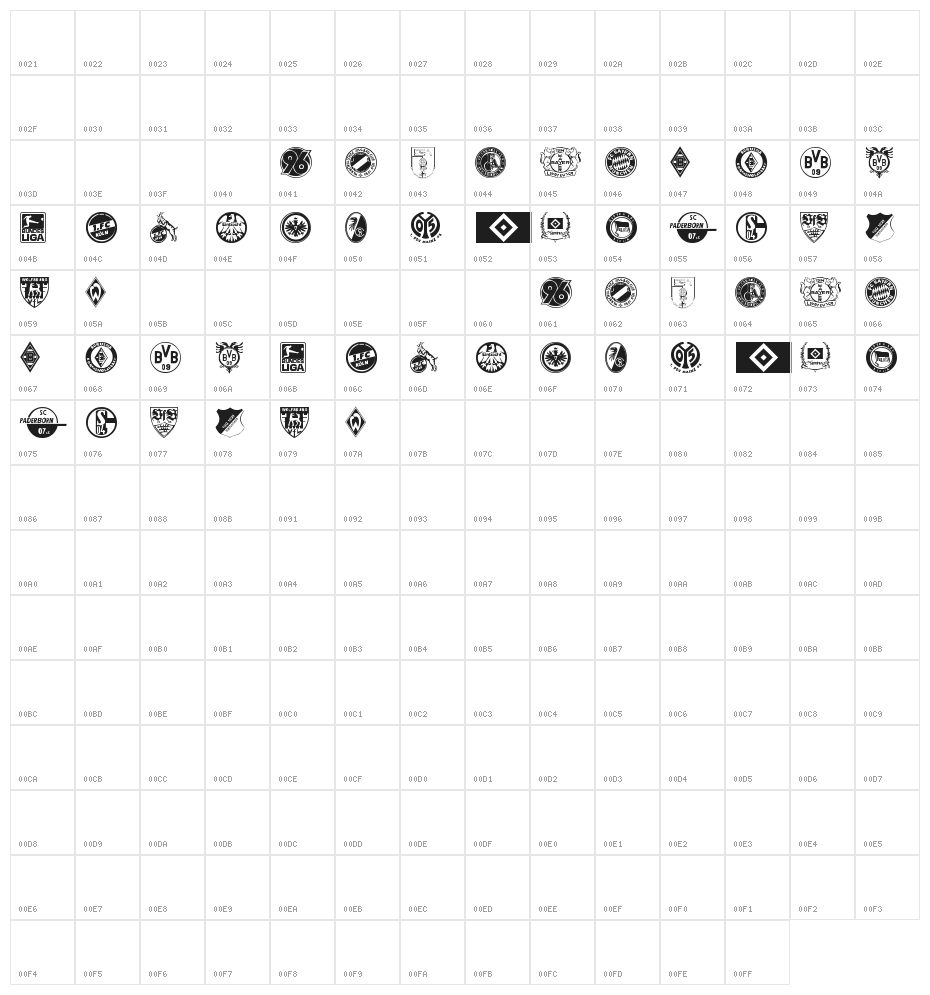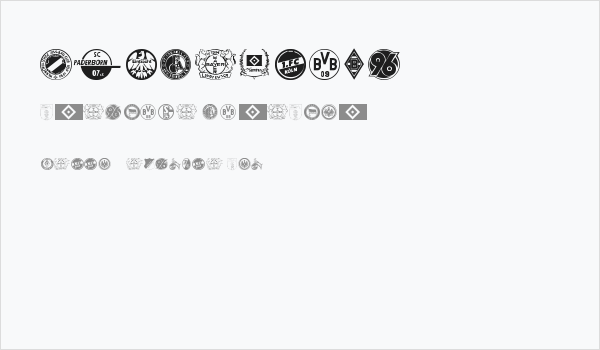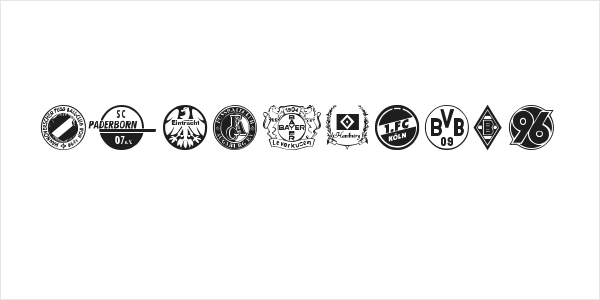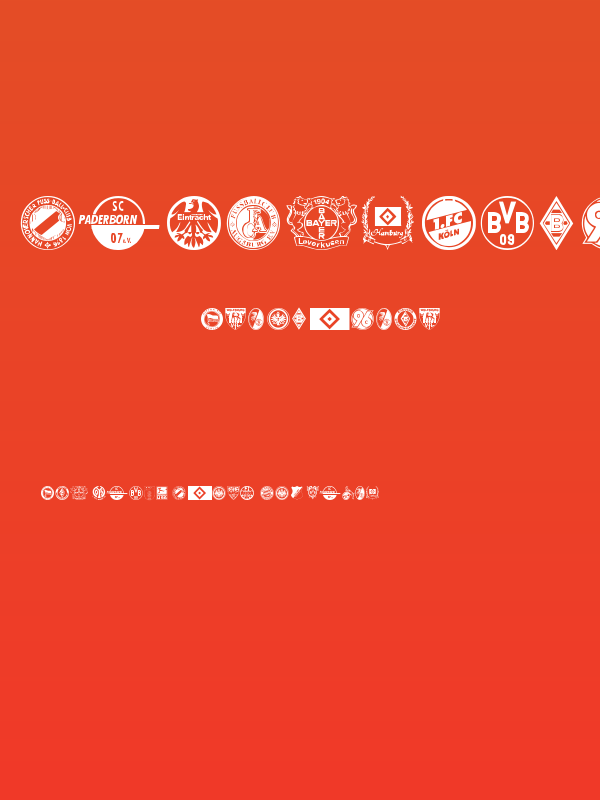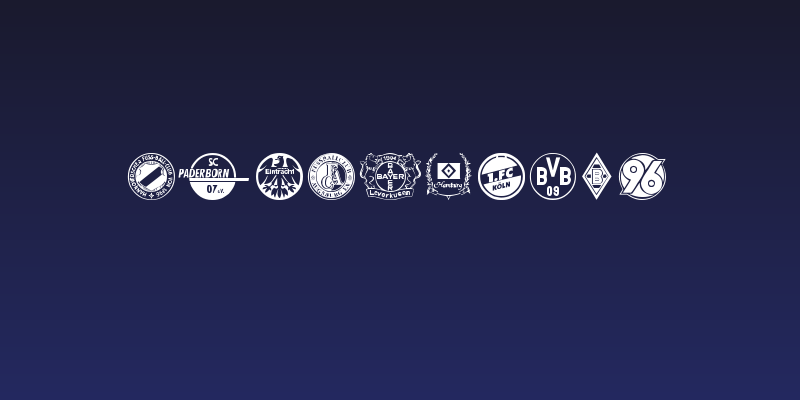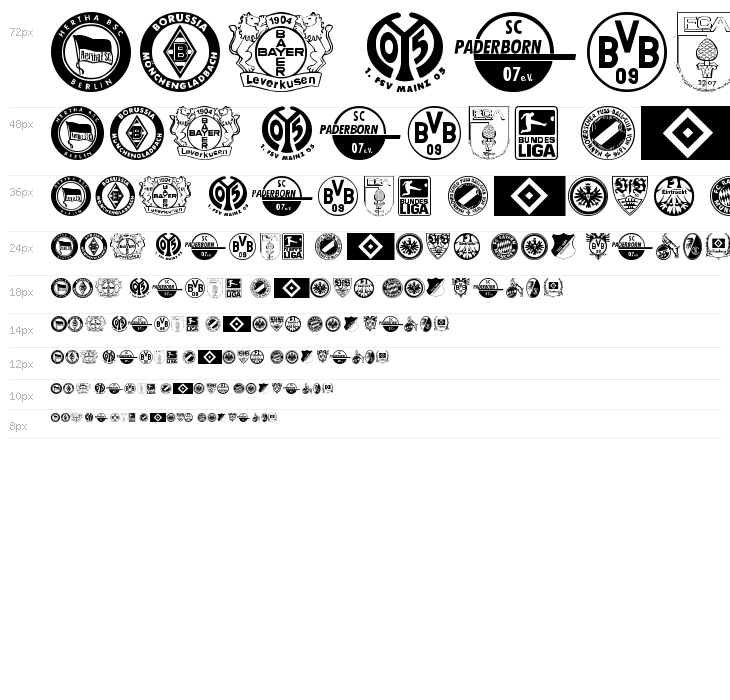
Bundesliga Font
Bundesliga Description
A decorative and bold font featuring stylized logos and emblems, each representing a unique design with strong geometric shapes, high contrast, and intricate details. The characters are not traditional letters or numbers but rather emblematic icons.
| Overall Style | Decorative, Sports-themed, Modern |
| Use Case | Logos, Posters, Branding, Themed Graphics |
| Proposed Projects | Sports branding, event posters, themed graphics, logo design, merchandise. |